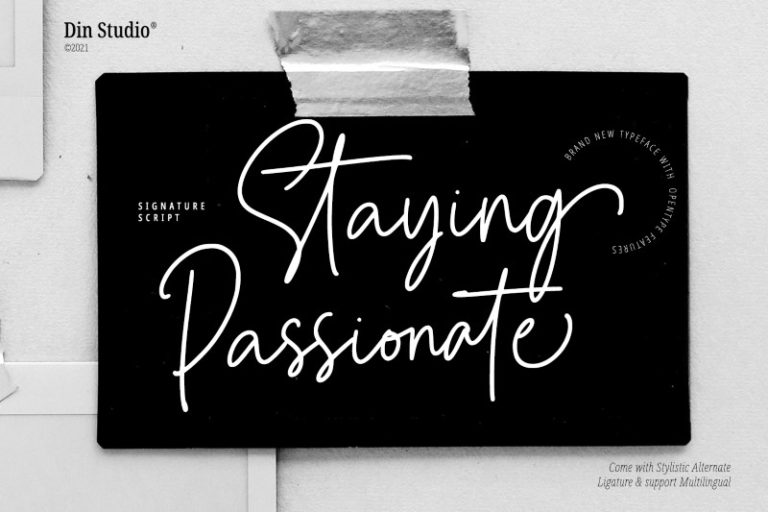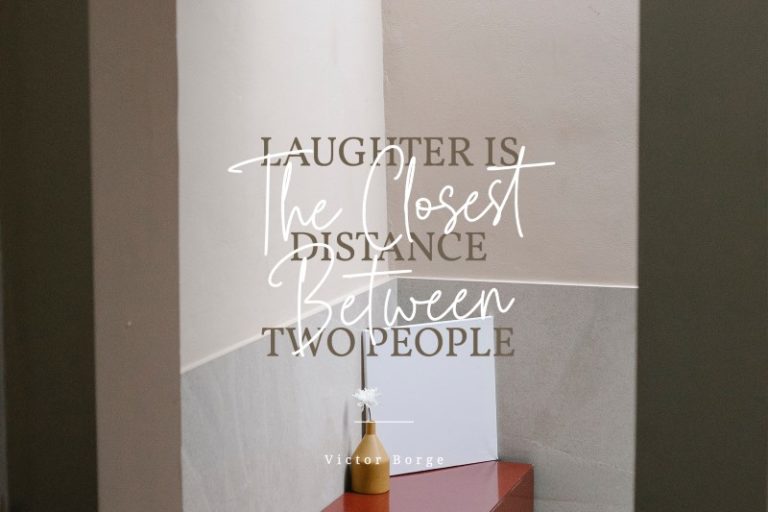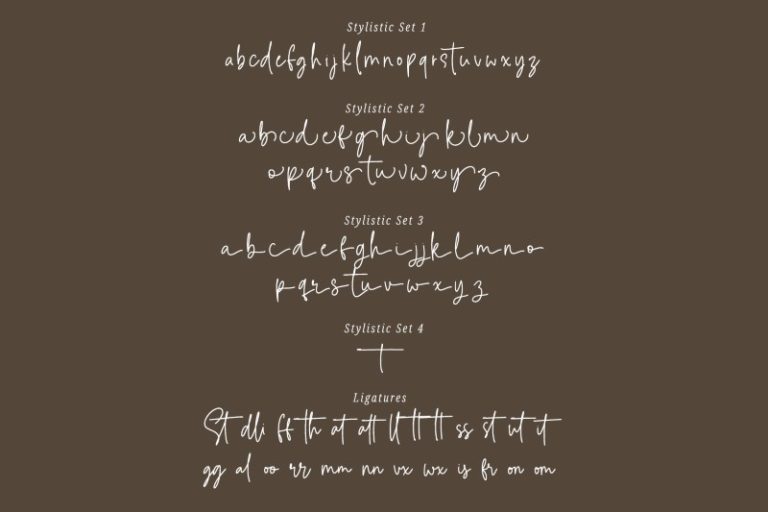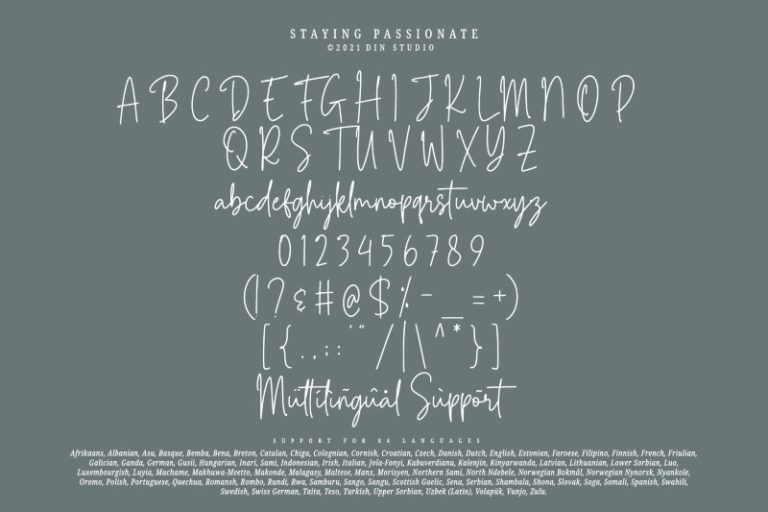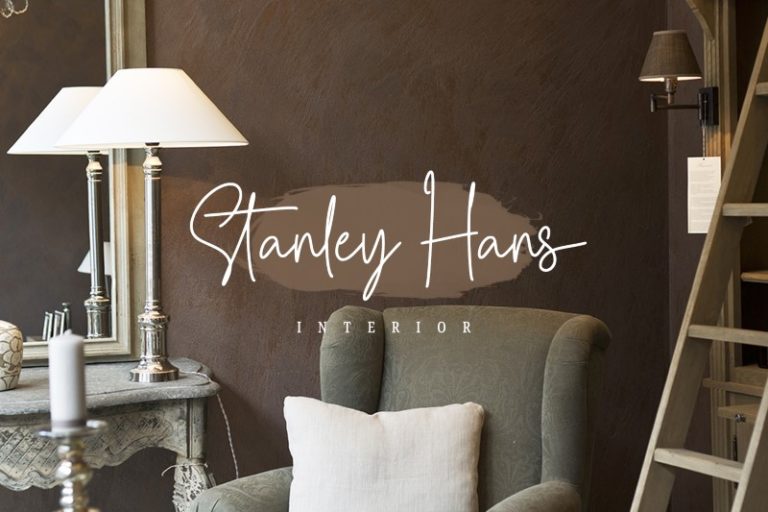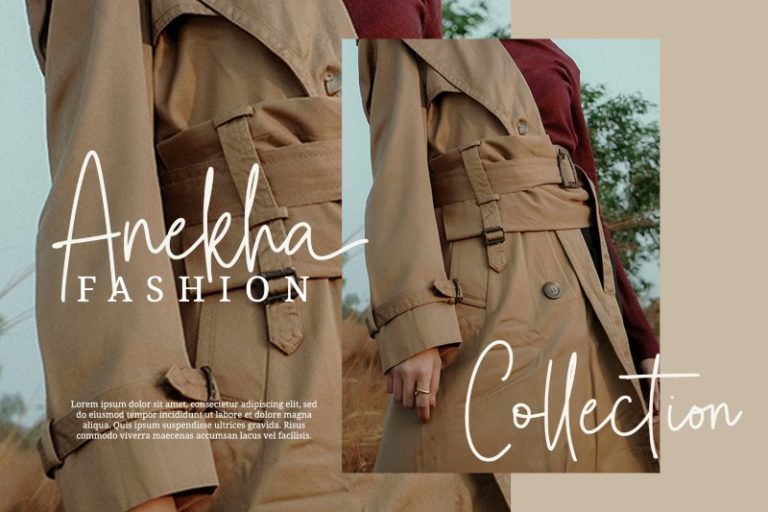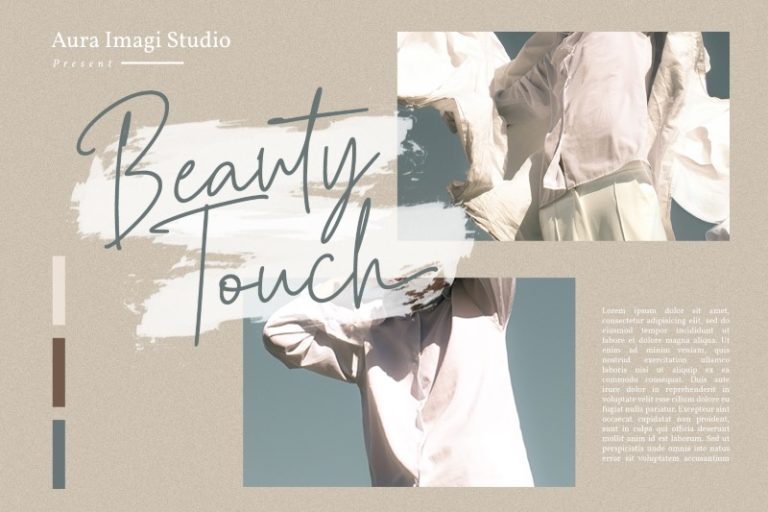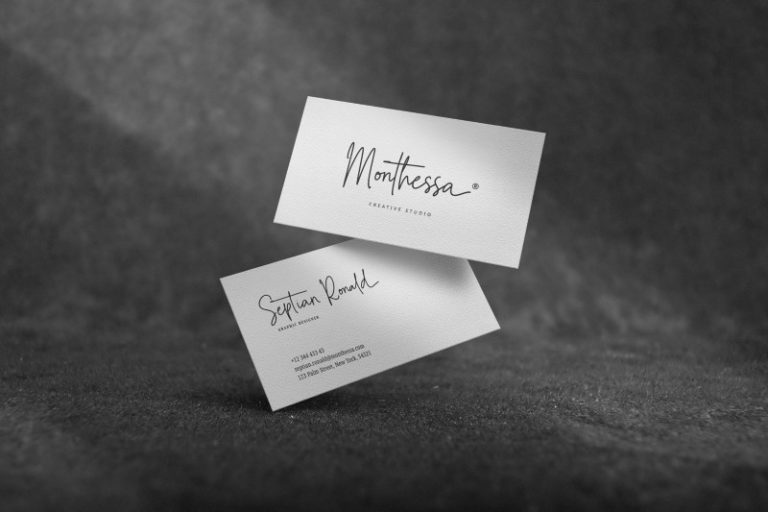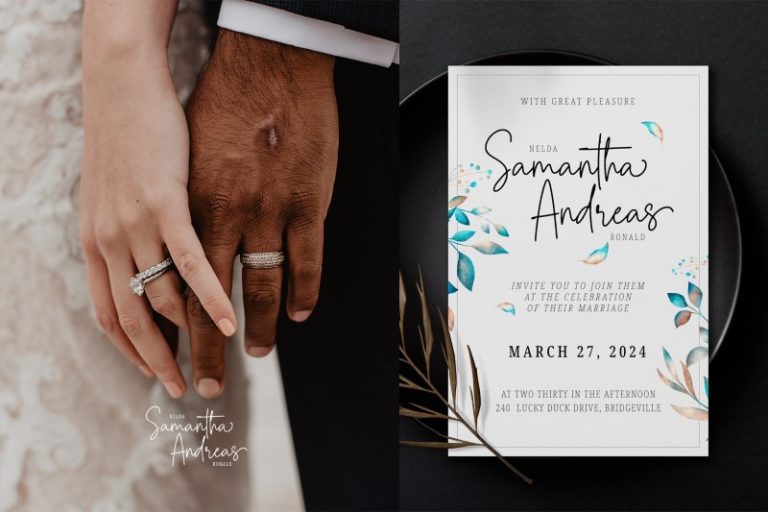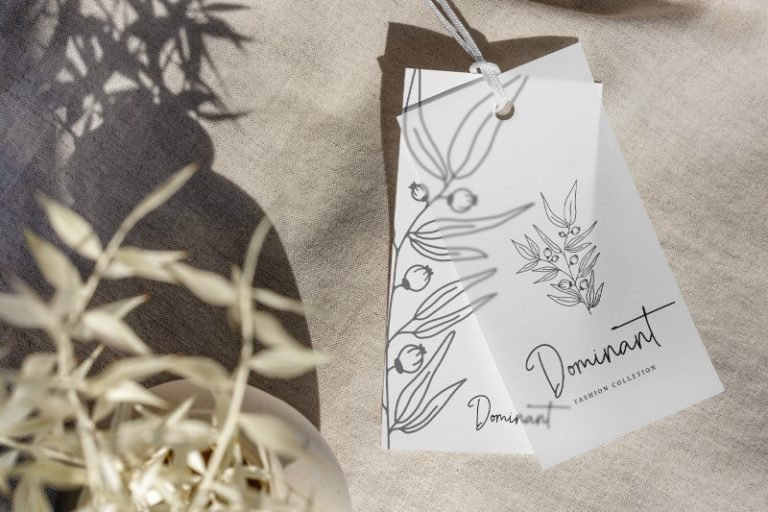
Staying Passionate – Monoline Signature Script Font
Staying Passionate
Looking for a font that’ll make your branding elegant, versatile, stylish, and eternal? Get ready to transcend to a world of magic, laughter, and butterflies. Your branding will spark delight and engage everyone who sees it with Staying Passionate Font!
Staying Passionate, a Script Font, is a beautifully handcrafted font that’ll make your guests excited and elevate your projects! Every stroke, and curve was created to entice happiness and elegance. Use it to create standout headings, promote your online sales, Instagram quotes, and even printed materials like business cards, t-shirts, or invitations.
Staying Passionate font includes Multilingual Options to make your brandings globally acceptable. See the previews above to get to know how to use them. Happy designing
Features include:
- Standard Ligatures
- Stylish Sets
- Multilingual Support